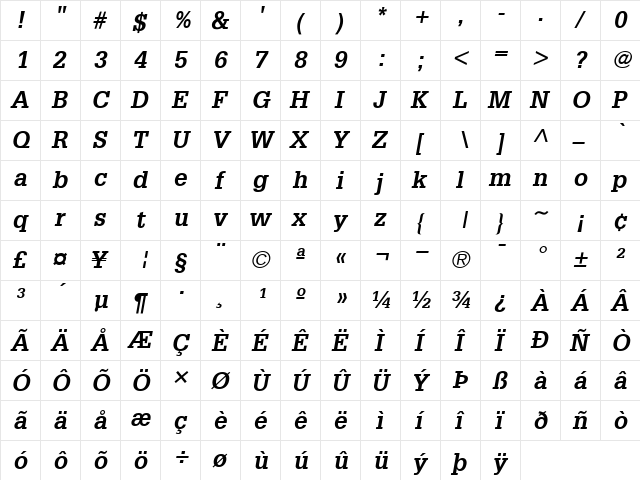
Glypha65 BoldItalic Font Preview
Glypha65 BoldItalic
Design Context for Glypha65 Typeface
Glypha65 offers clean, dependable letterforms without strong stylistic allegiance, making it a practical choice for designers who need flexibility. Its italic angle brings a sense of urgency and motion to the letterforms. Its bold stroke weight gives it real presence on the page.
Pro Tip: Try Glypha65 for annotation and caption copy alongside an upright companion — the contrast in angle creates a dynamic but ordered typographic system.